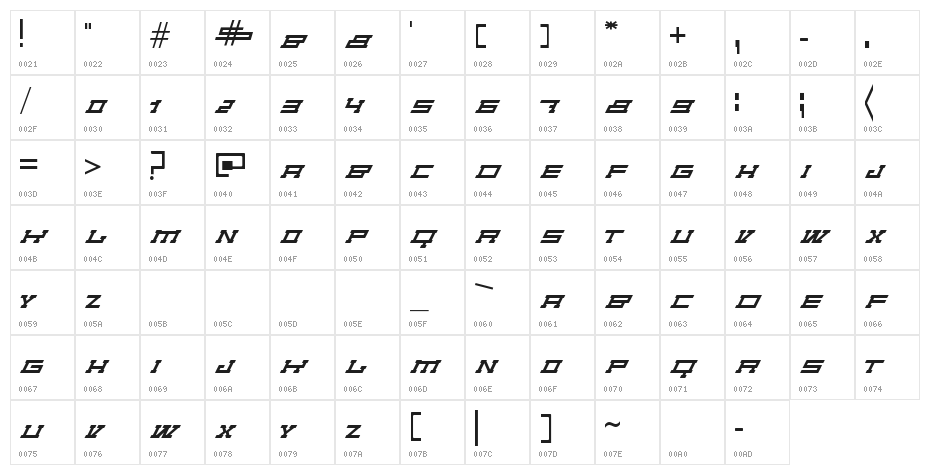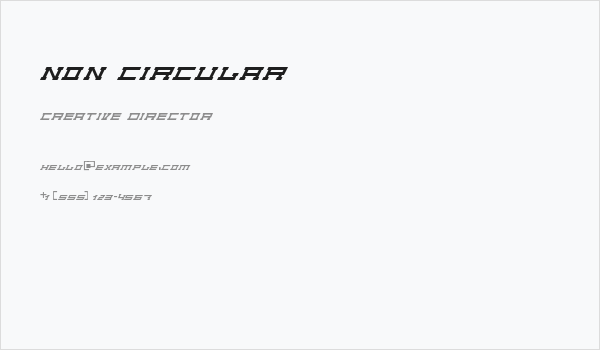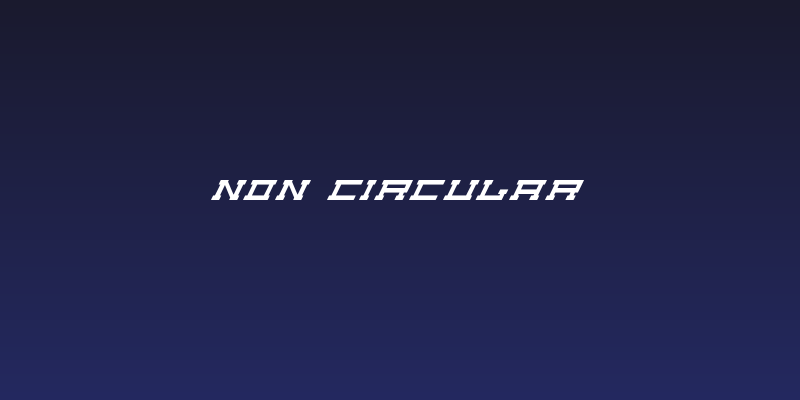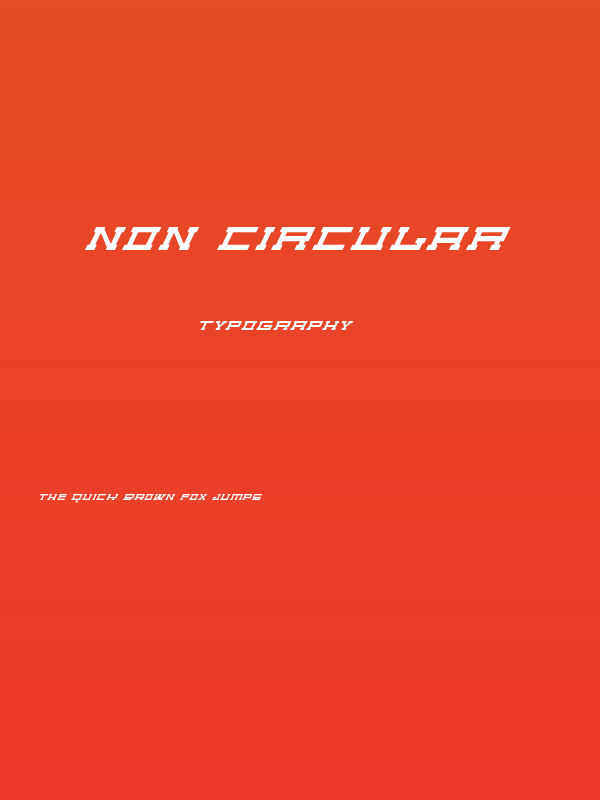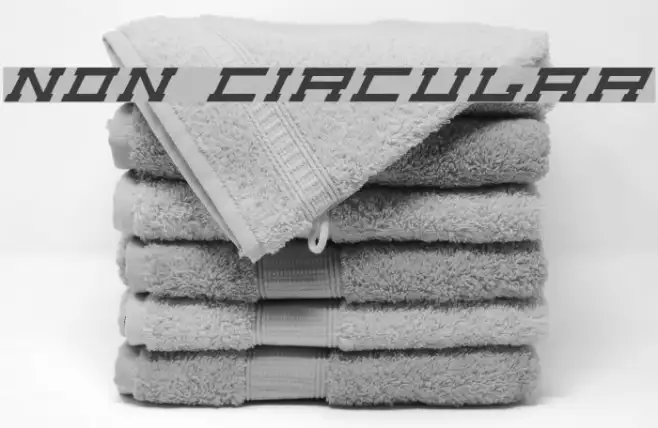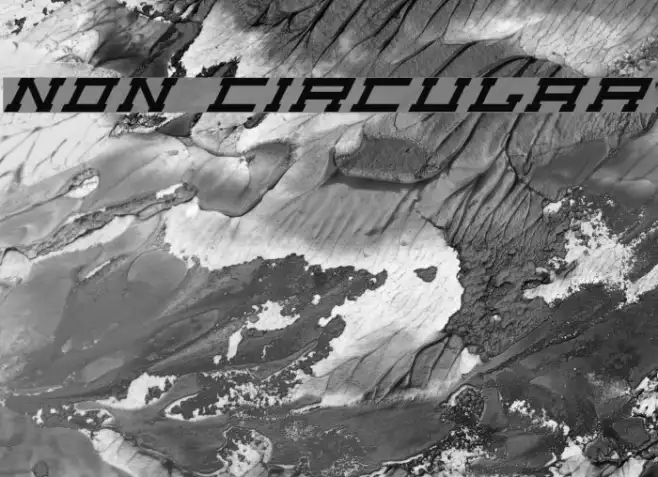
Non Circular Font
Non Circular Description
This font features a bold, angular design with a futuristic and mechanical aesthetic. The characters are constructed with sharp edges and diagonal lines, giving them a dynamic and aggressive appearance. The uppercase and lowercase letters maintain a consistent style, with a slight slant that adds to the sense of motion. The numbers and special characters follow the same design principles, ensuring uniformity across the typeface. The overall look is reminiscent of digital or sci-fi themes, making it suitable for projects that require a modern and edgy feel.
| Proposed Projects | Ideal for sci-fi themed designs, video game graphics, technology branding, and modern posters. |